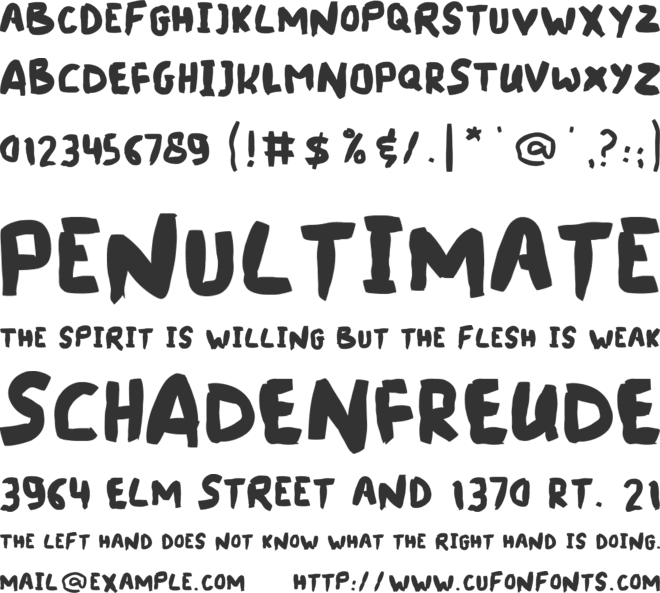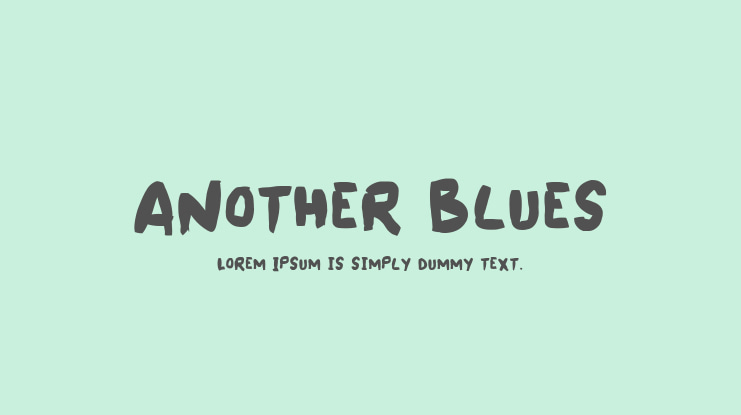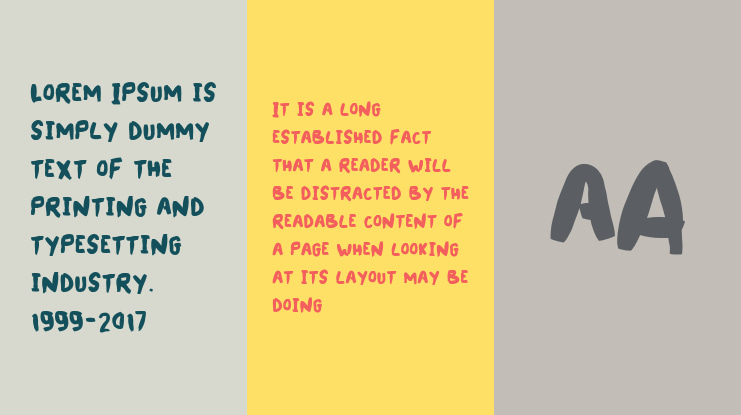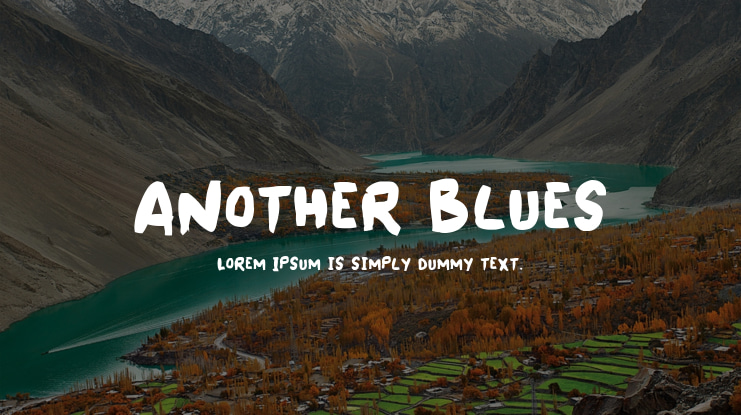
Another Blues Font
deedeetype
Introducing Another Blues, a sleek and uncomplicated display font. This versatile typeface is the perfect choice for your posters, flyers, or any print materials. Unleash your creativity with this font and unlock a world of limitless design possibilities.